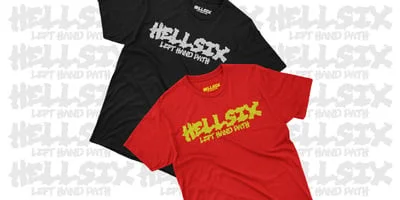
Dezter Black Metal Font
Dezter Black Metal Font is an exceptional choice for projects that demand a dark, aggressive, and highly stylized aesthetic deeply rooted in the black metal music scene. It's perfectly suited for extreme metal band logos, album artwork, underground zines, dark fantasy illustrations, and any application where you want to evoke a sense of raw power, mystique, and uncompromising rebellion. Imagine it dominating the cover of a black metal album, adding a menacing and authentic edge to a gothic-themed video game title, or giving a brand a unique, powerful, and cult-like appeal. Its sharp, often thorny or fragmented forms and intense presence ensure your message is conveyed with both an undeniable attitude and a captivating, extreme style.
What makes Dezter Black Metal Font so exciting is its ability to immediately infuse a design with a sense of raw, unbridled energy and a distinctive subgenre identity. It captures the essence of a powerful and often controversial musical genre, making it ideal for projects that aim to feel intense, dark, and deeply impactful. This font isn't just about displaying text; it’s about making a visceral statement, adding a layer of rebellious spirit and raw artistic power to your visuals. It's the ideal tool for designers looking to infuse their work with a strong, uncompromising character and a memorable visual punch, specifically tailored for the black metal aesthetic.
The Dezter Black Metal Font family typically focuses on delivering its signature powerful and often distressed, spiky, or fragmented look with precision. You might find a standard Regular weight that embodies its core aggressive aesthetic, along with potential variations that enhance its visual impact, such as bolder versions or slight stylistic alterations that reinforce its unique character. These nuances ensure that Dezter Black Metal Font can be the cornerstone of a truly unique and powerfully thematic visual identity, helping your designs stand out with an undeniable sense of character and unbridled force.